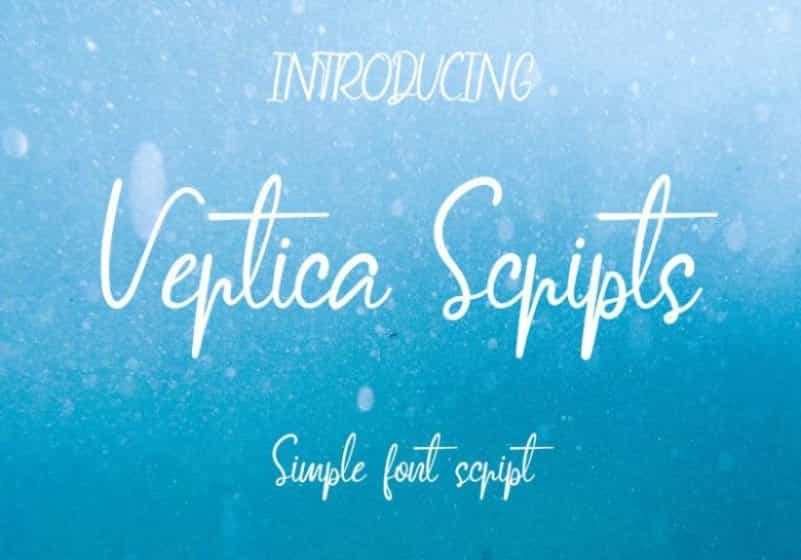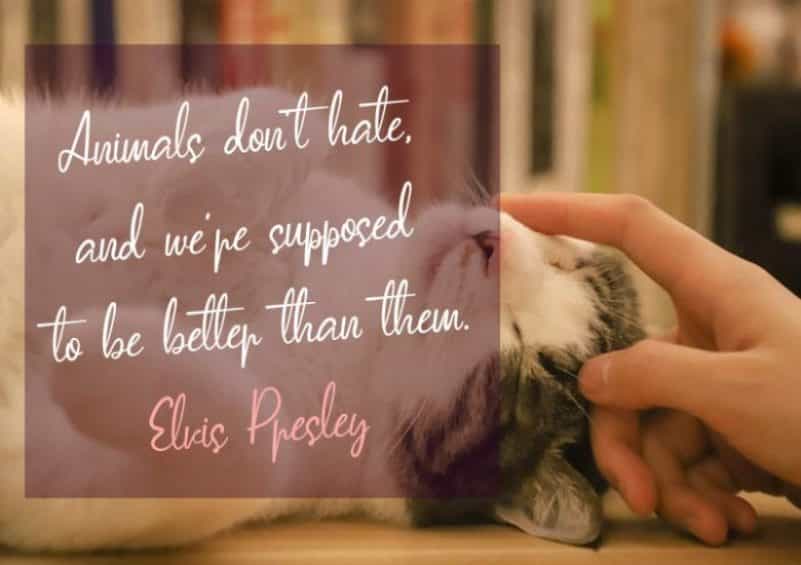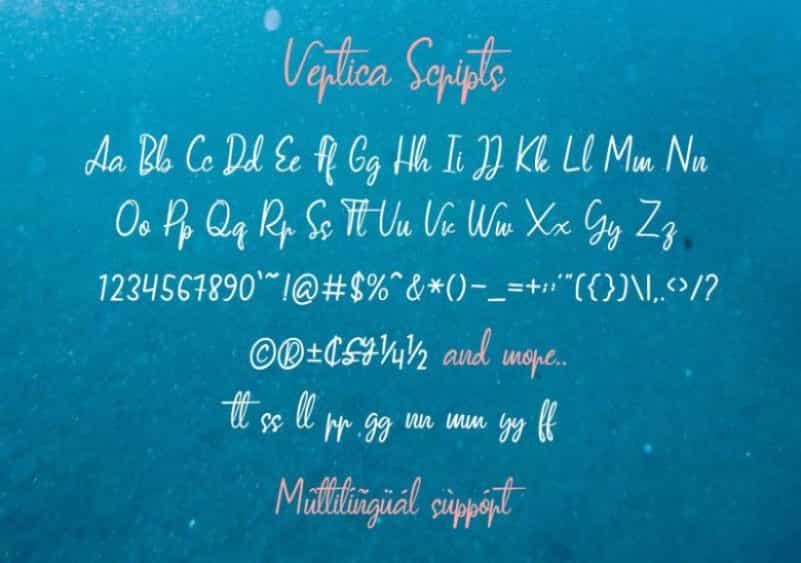
The Vertica Script Font is a neat, graceful, lovely and plain font that is suitable for a great deal of designs such as quotes text, book cover, logos, wedding invitations, posters and many more.